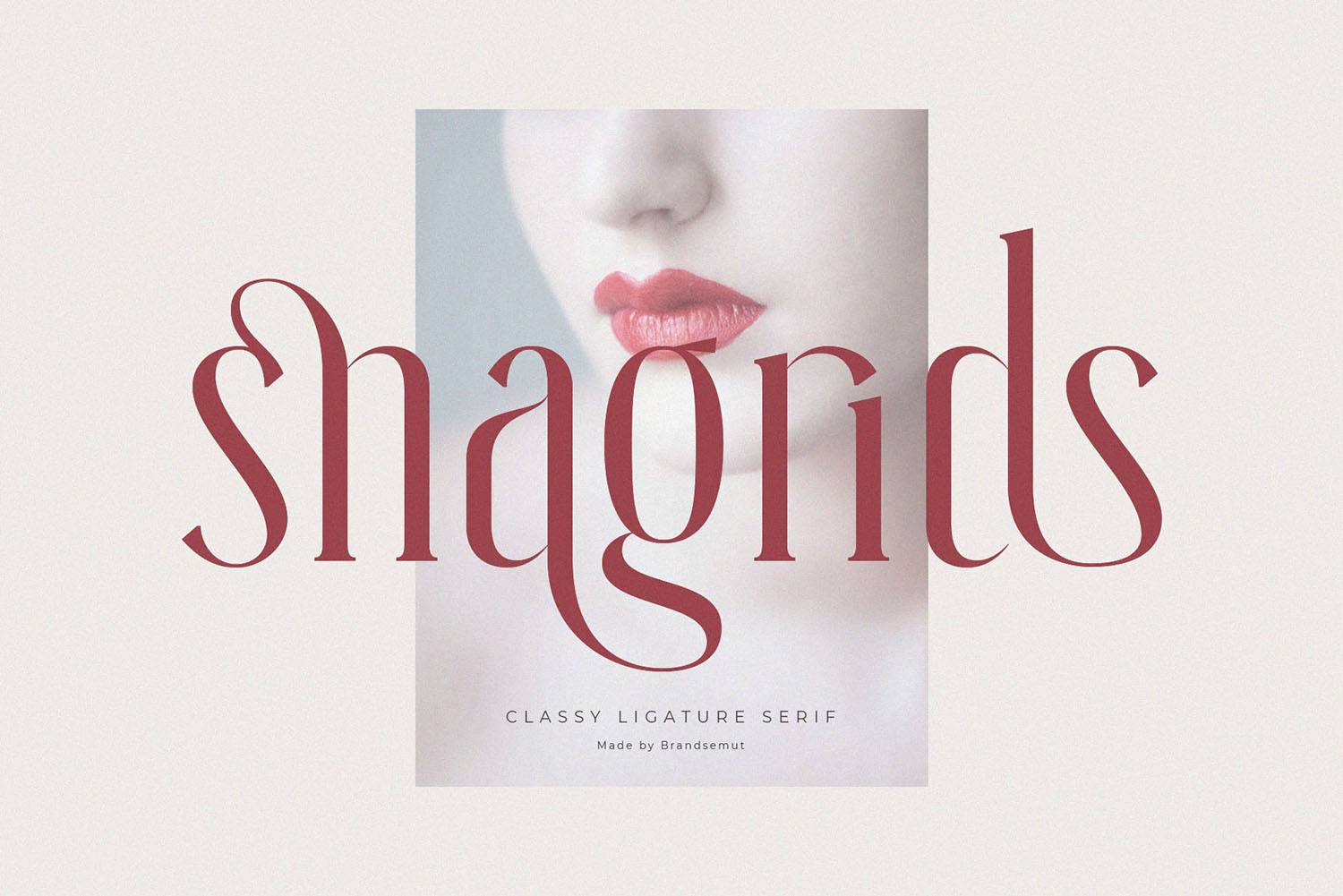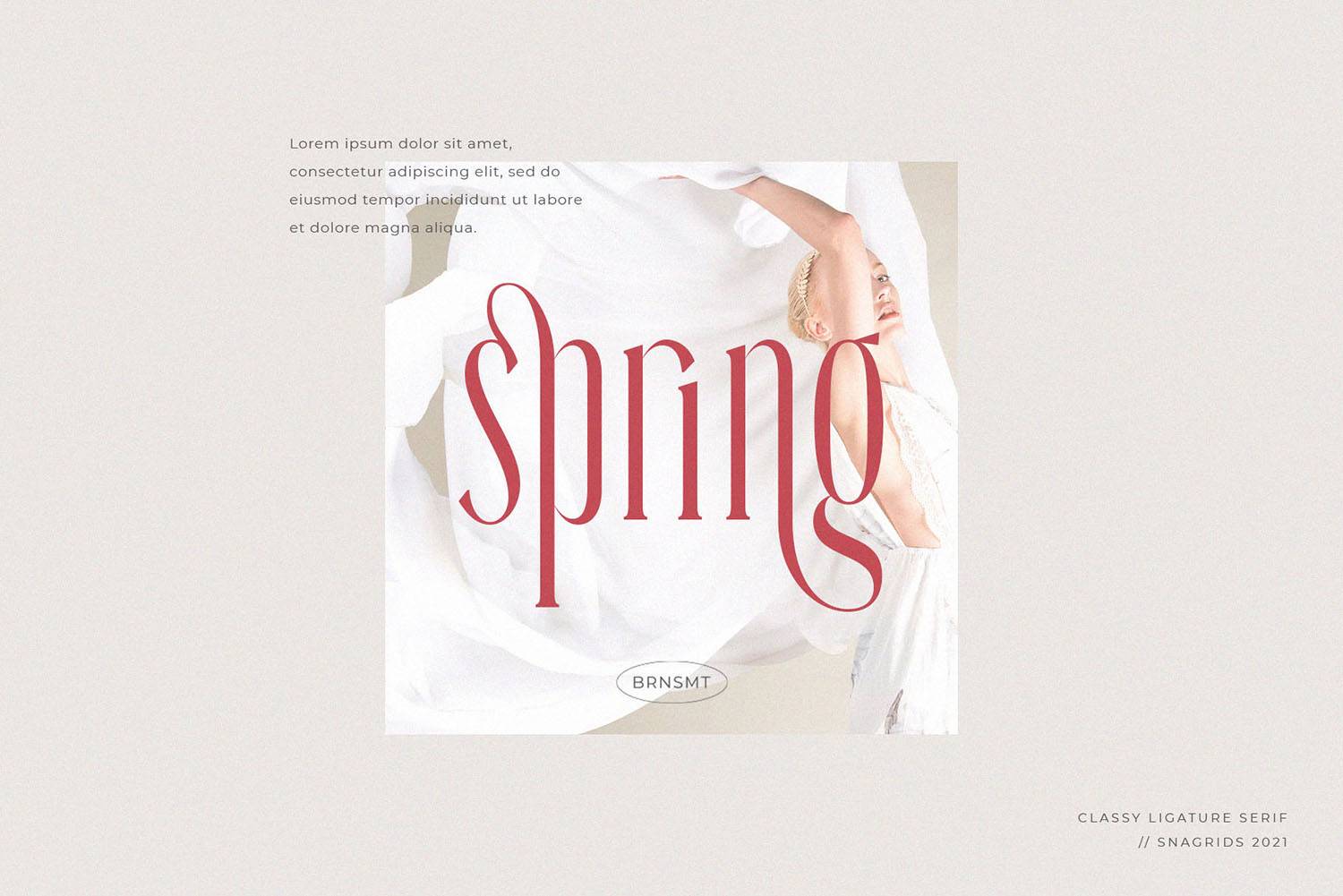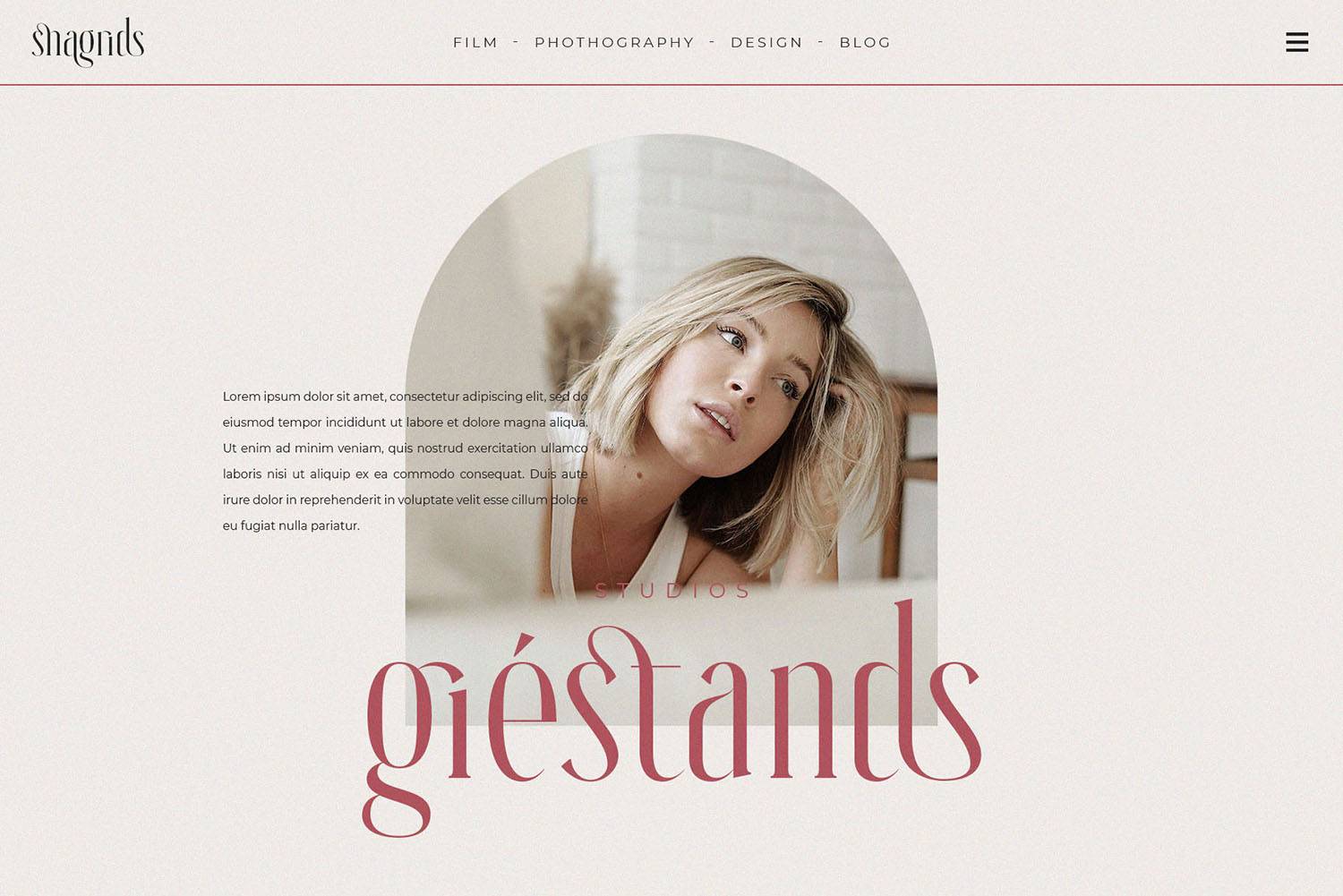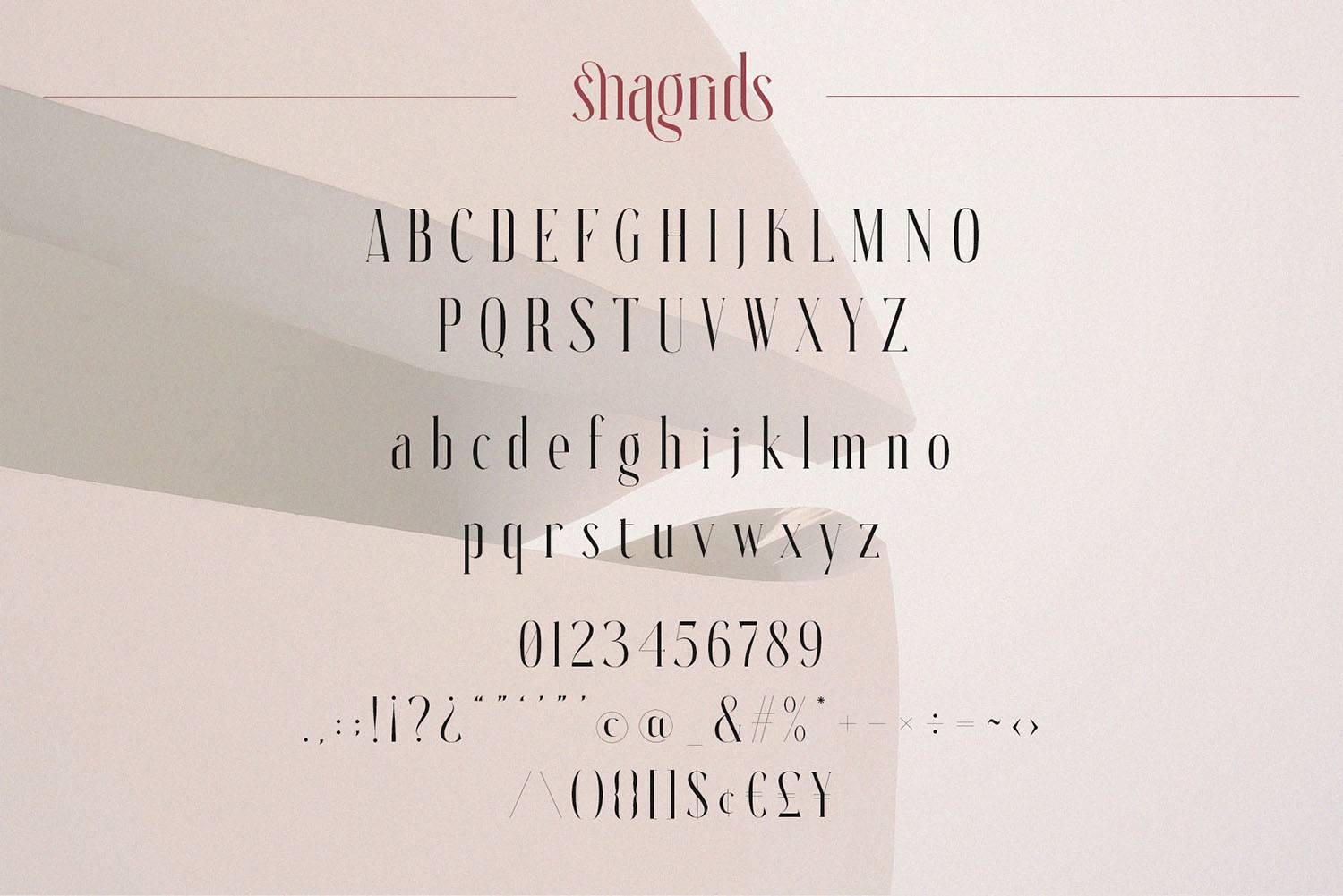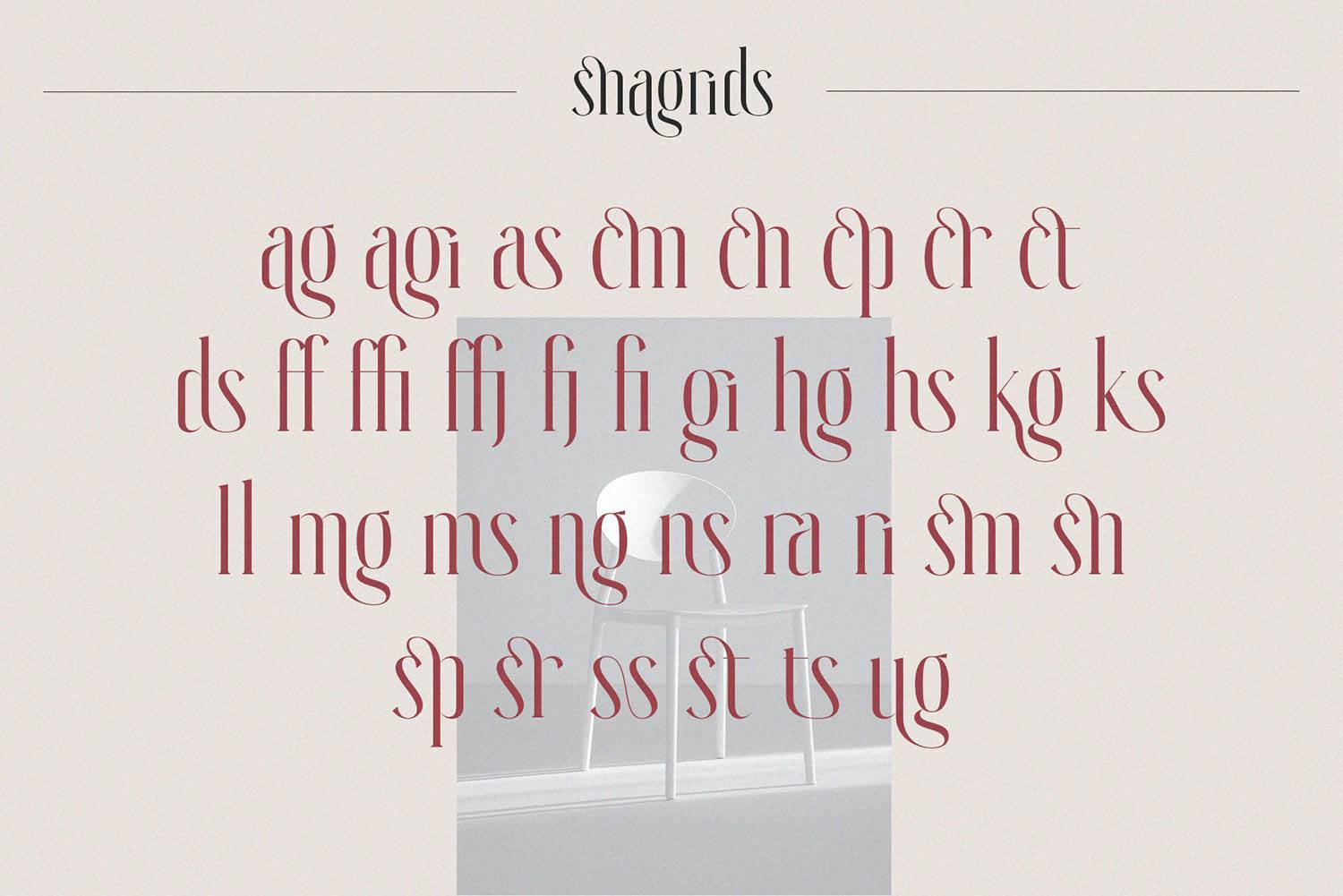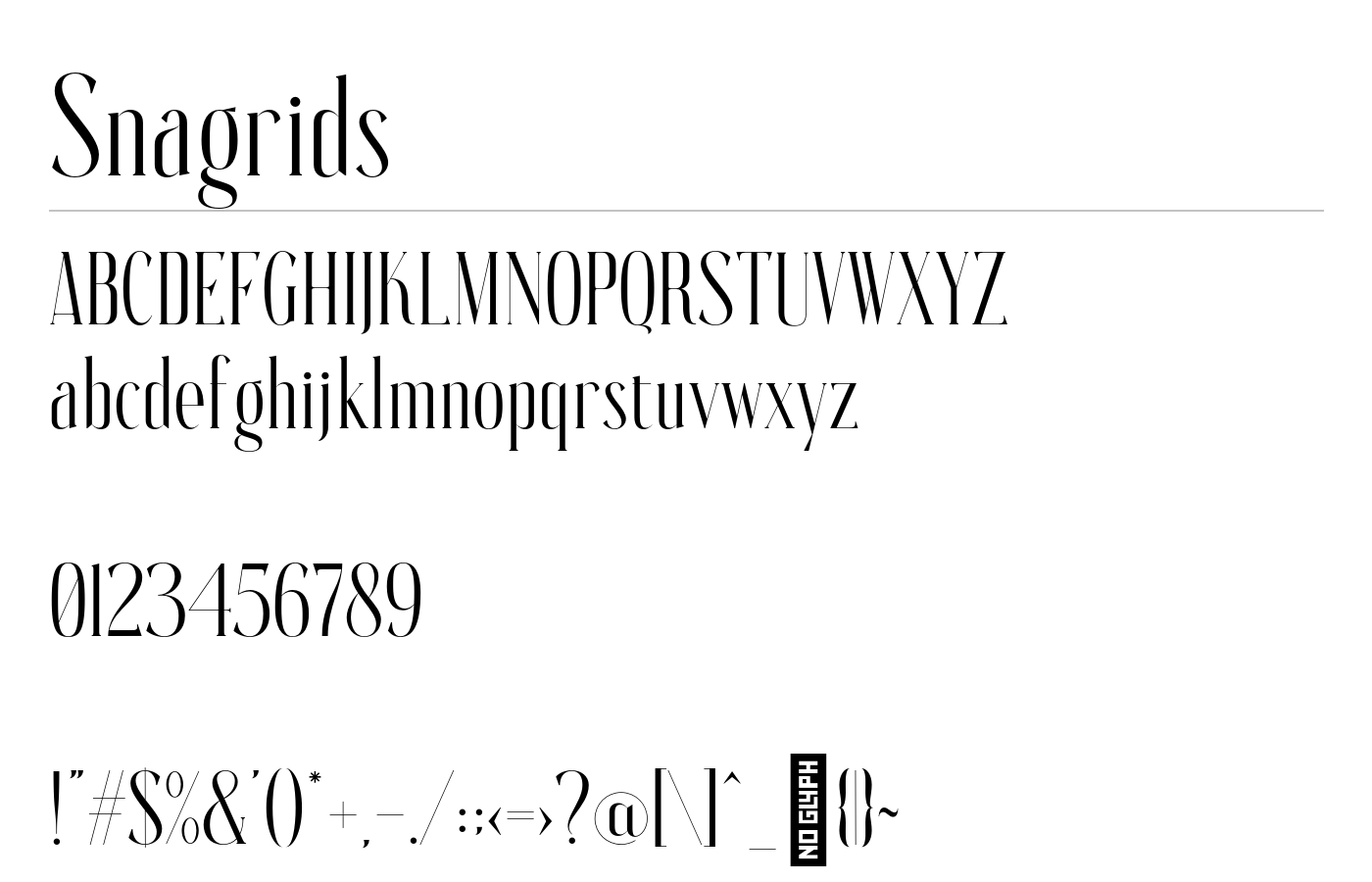
Snagrids is an elegant, high-contrast serif font with a distinctly tall and narrow design, featuring sharp, refined strokes and delicate bracketed serifs that evoke a sophisticated, vintage-modern blend. Its slender proportions and unique letterforms make it ideal for luxury branding, editorial headlines, and stylish packaging where a dramatic, upscale impression is desired. This font works best in display settings that highlight its artistic flair and fine details.
Snagrids Font
About Snagrids Font
| Font family | Snagrids Font |
| Release date | 2021-08-07 |
| Designer | Brandsemut |